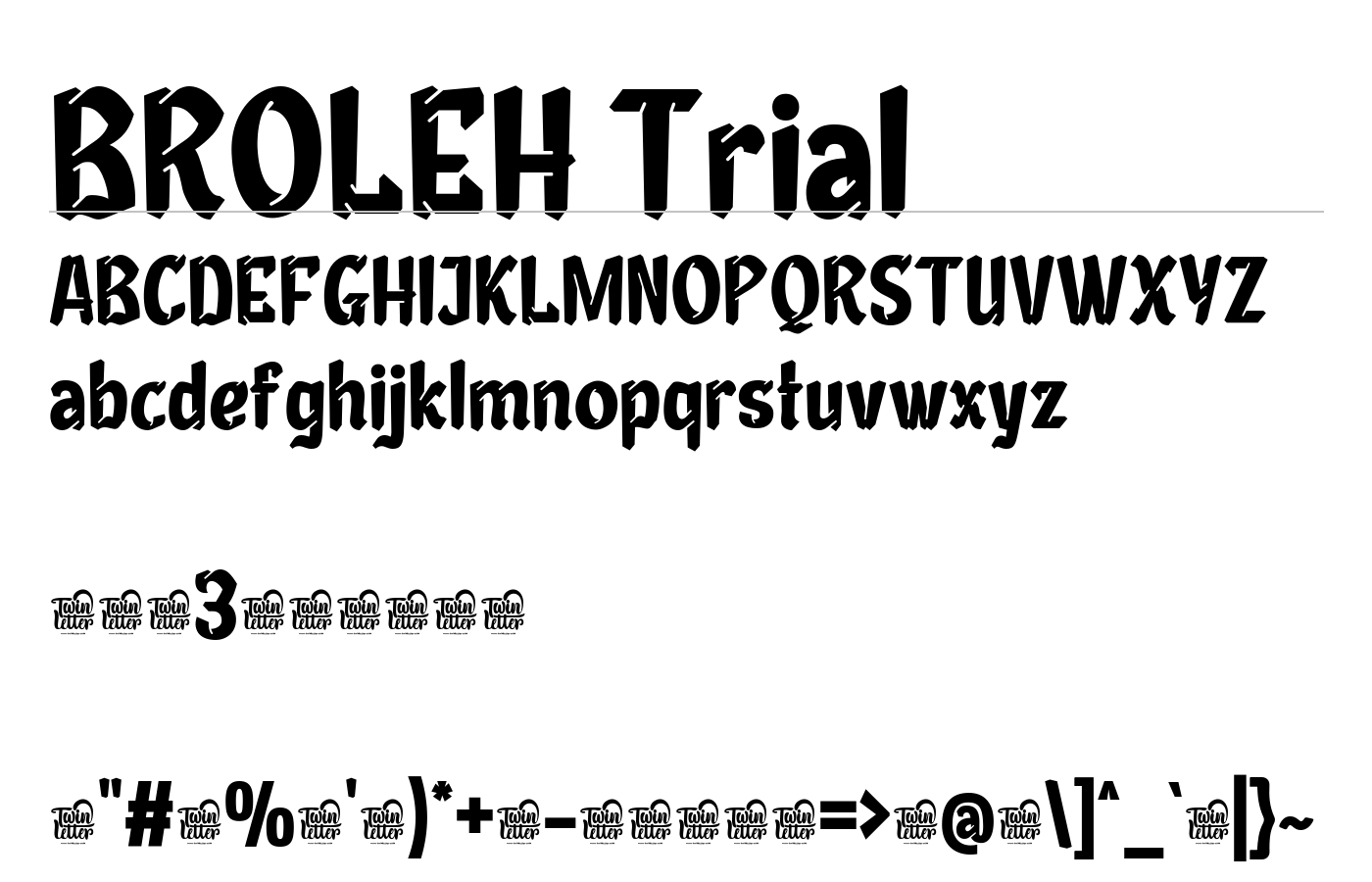
BROLEH Trial is a bold, condensed serif font with a strong gothic or blackletter influence, featuring sharp, angular strokes and a high contrast between thick and thin lines. Its uppercase and lowercase letters have a unique, slightly rough character with decorative details, making it feel edgy and dramatic while maintaining readability. This font works particularly well for headlines, posters, and branding that seek a vintage or alternative vibe with a striking, memorable presence.
BROLEH Trial Font